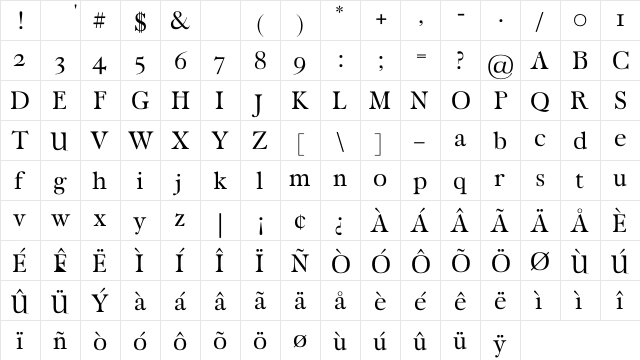
Carita Regular
| Foundry | Creativetacos |
| Designer | Mohammad Ahsan |
Design Context for Carita Typeface
Carita offers clean, dependable letterforms without strong stylistic allegiance, making it a practical choice for designers who need flexibility.